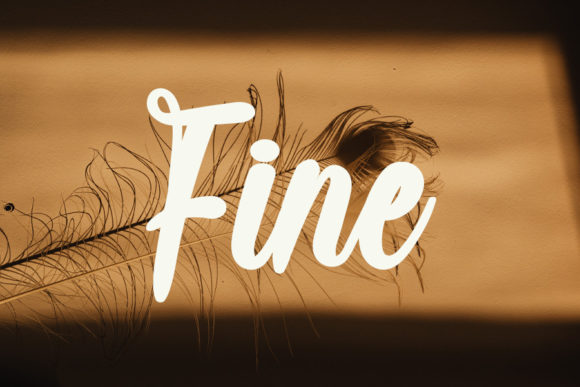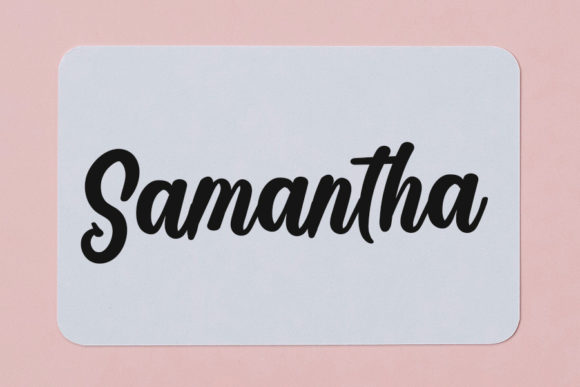
Neutral Font
db-ku.com - Script & Handwritten -- Neutral is a cool handwritten font with a modern vibe and spotless form, inspired by a classic calligraphy. Not too thin and not too thick, balanced and varied, this font was designed to enhance the beauty of your projects.